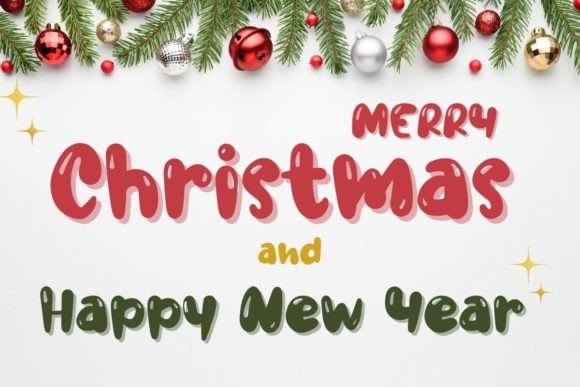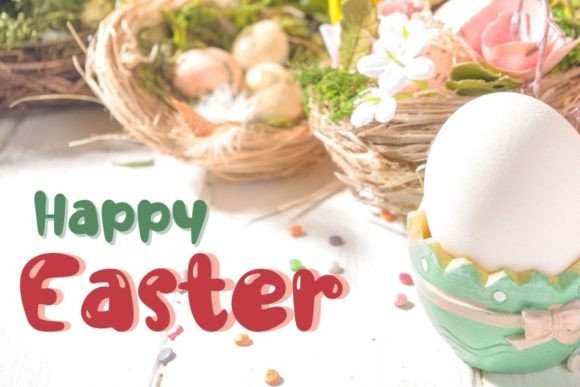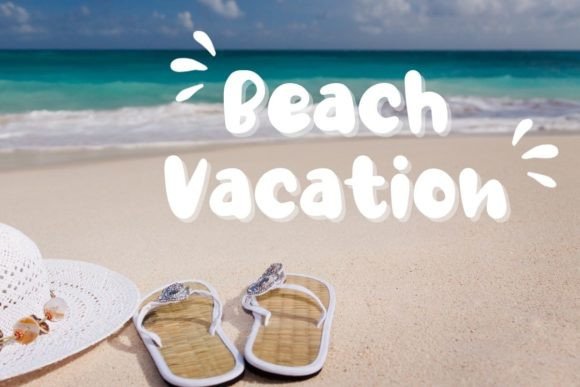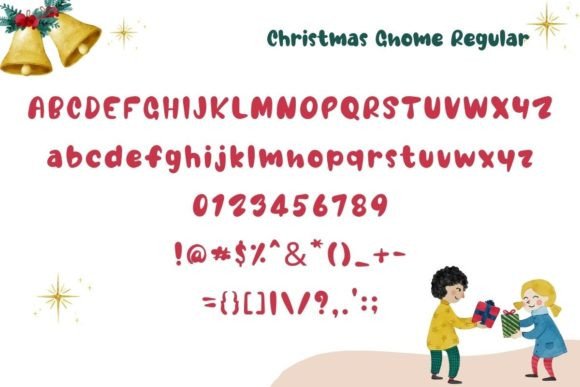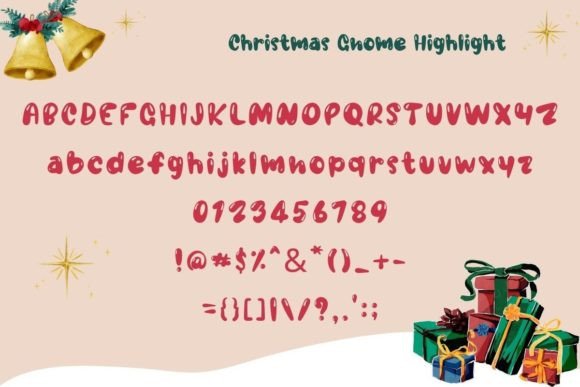
Introducing the Christmas Gnome Font: A Fun and Groovy Display Font for Your Holiday Designs
Are you looking for a font that captures the playful and whimsical spirit of Christmas and gnomes? Look no further than the Christmas Gnome Font! This fun and groovy display font is perfect for designers and crafters who want to add a touch of casual charm to their holiday designs. With its unique and quirky style, the Christmas Gnome Font is sure to make your designs stand out from the crowd.
What Makes the Christmas Gnome Font So Special?
The Christmas Gnome Font is a one-of-a-kind display font that is specifically designed to evoke the magic and wonder of Christmas and gnomes. Its casual charm and playful style make it perfect for a wide range of design ideas, from festive holiday banners and cards to fun and quirky mugs and shirts. Whether you’re a professional designer or a crafter looking for a unique font to add to your creations, the Christmas Gnome Font is sure to inspire.
Perfect for a Wide Range of Design Ideas
One of the best things about the Christmas Gnome Font is its versatility. This font can be used for a wide range of design ideas, including:
• Banners: Create eye-catching holiday banners with the Christmas Gnome Font that are sure to grab attention.
• Content: Use the Christmas Gnome Font to add a touch of whimsy to your holiday content, such as blog posts and social media updates.
• Mugs: Design fun and quirky mugs with the Christmas Gnome Font that make perfect gifts for friends and family.
• Cards: Create unique and personalized holiday cards with the Christmas Gnome Font that are sure to stand out.
• Shirts: Design festive holiday shirts with the Christmas Gnome Font that are perfect for wearing to parties and gatherings.
• Stationery: Use the Christmas Gnome Font to add a touch of holiday cheer to your stationery, such as notebooks and journals.
• Social Media Posts: Add a touch of whimsy to your holiday social media posts with the Christmas Gnome Font.
Why Designers and Crafters Love the Christmas Gnome Font
Designers and crafters love the Christmas Gnome Font for many reasons. Here are just a few:
• Unique Style: The Christmas Gnome Font has a unique and quirky style that is sure to make your designs stand out.
• Easy to Read: Despite its playful style, the Christmas Gnome Font is easy to read, making it perfect for use in a wide range of designs.
• Versatile: The Christmas Gnome Font can be used for a wide range of design ideas, making it a great addition to any designer’s or crafter’s toolkit.
• Fun and Festive: The Christmas Gnome Font is perfect for adding a touch of holiday cheer to your designs.
Tips for Using the Christmas Gnome Font
Here are a few tips for using the Christmas Gnome Font in your designs:
• Use it sparingly: While the Christmas Gnome Font is fun and playful, it can be overwhelming if used too much. Use it sparingly to add a touch of whimsy to your designs.
• Pair it with other fonts: The Christmas Gnome Font pairs well with other fonts, such as serif and sans-serif fonts. Experiment with different pairings to find the one that works best for your design.
• Experiment with colors: The Christmas Gnome Font looks great in a wide range of colors, from bright and bold to soft and pastel. Experiment with different colors to find the one that works best for your design.
The Christmas Gnome Font is a fun and groovy display font that is perfect for designers and crafters who want to add a touch of casual charm to their holiday designs. With its unique and quirky style, this font is sure to make your designs stand out from the crowd. Whether you’re creating festive holiday banners, fun and quirky mugs, or unique and personalized cards, the Christmas Gnome Font is the perfect choice. So why wait? Download the Christmas Gnome Font today and start creating your own holiday designs!